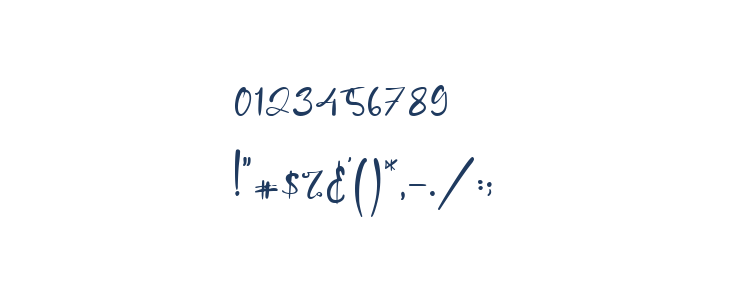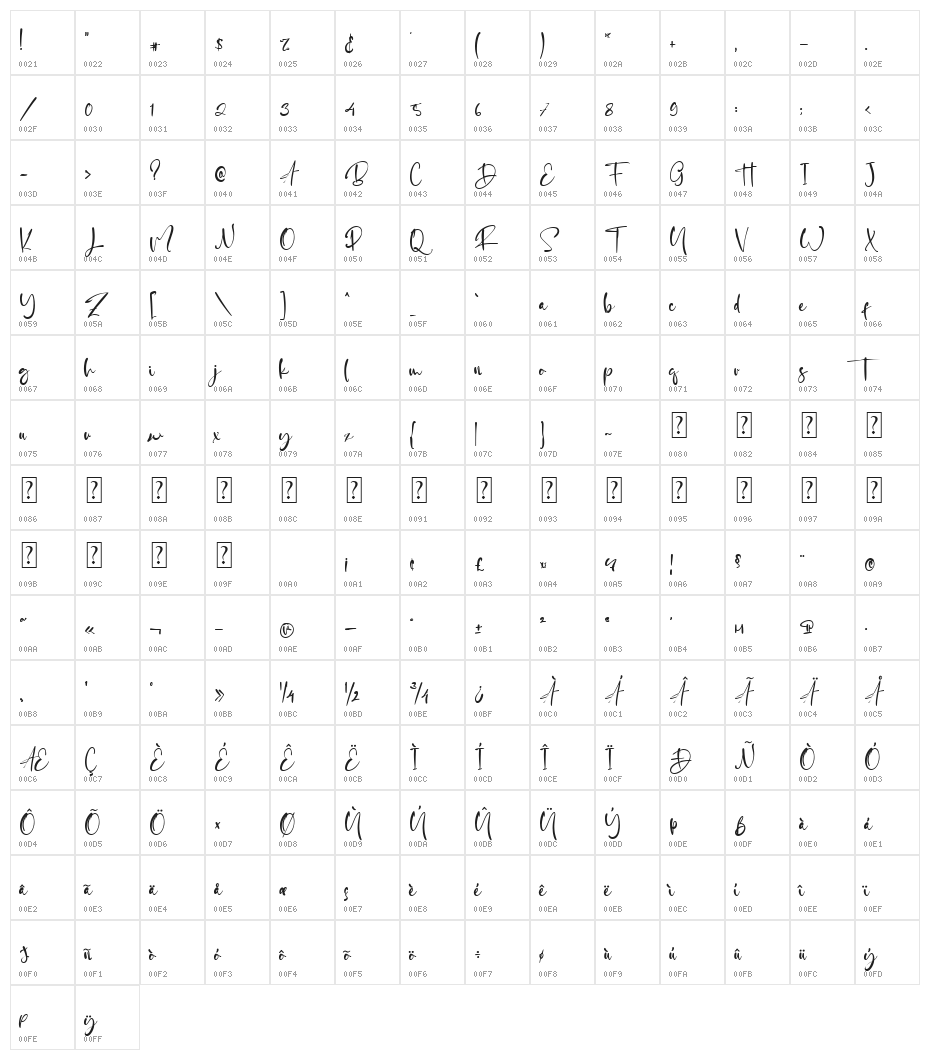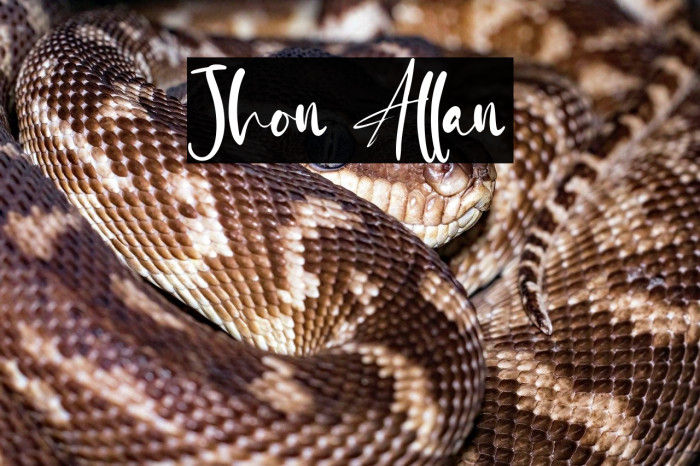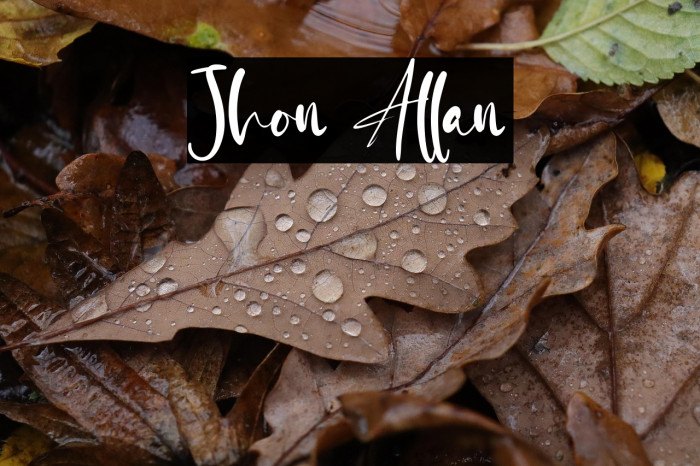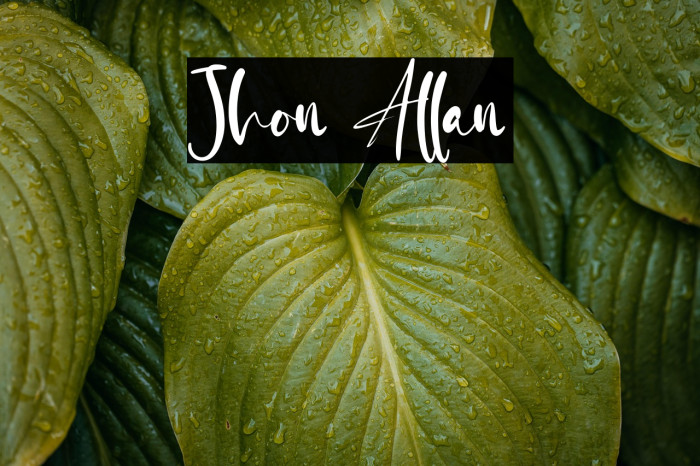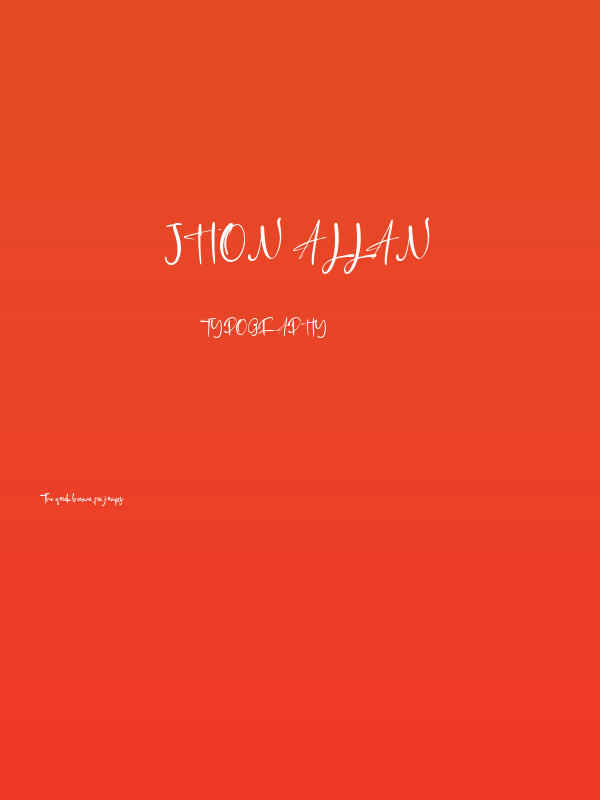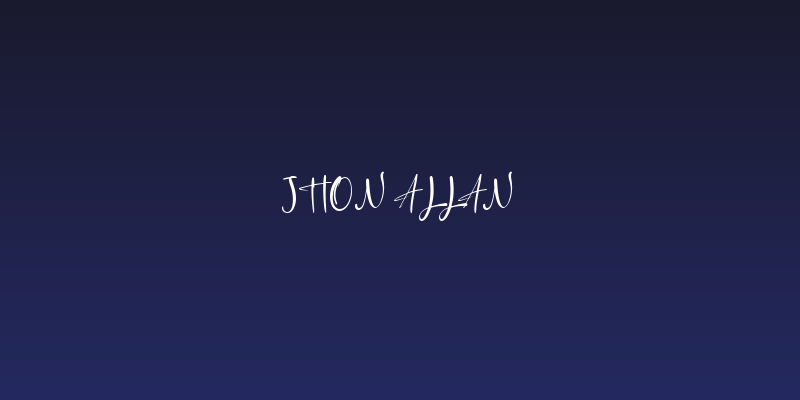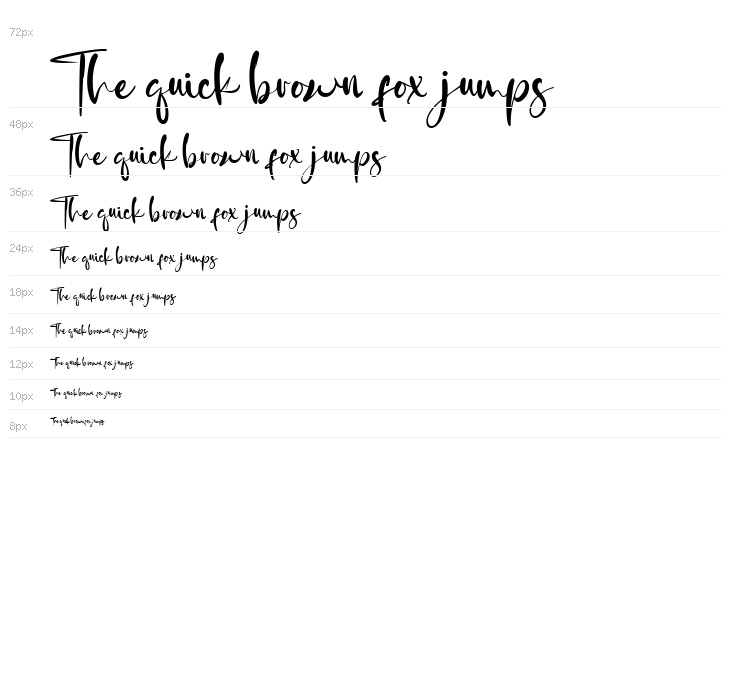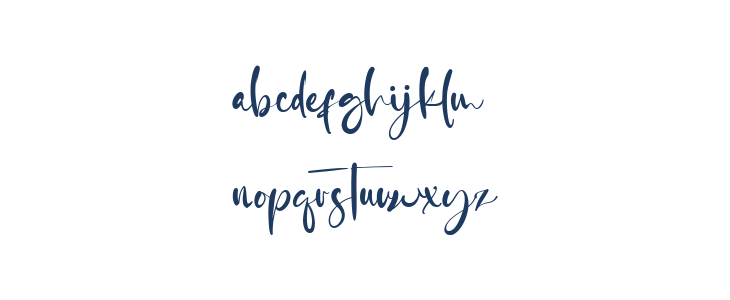
Jhon Allan Font
Jhon Allan Description
This font exudes a lively and expressive handwritten style, characterized by its fluid and dynamic strokes. The uppercase letters are bold and prominent, while the lowercase letters maintain a consistent flow, adding a personal touch to the text. The numerals are clear and legible, complementing the overall aesthetic. Special characters are creatively integrated, enhancing the font's versatility. Its playful yet sophisticated appearance makes it suitable for a variety of creative projects.